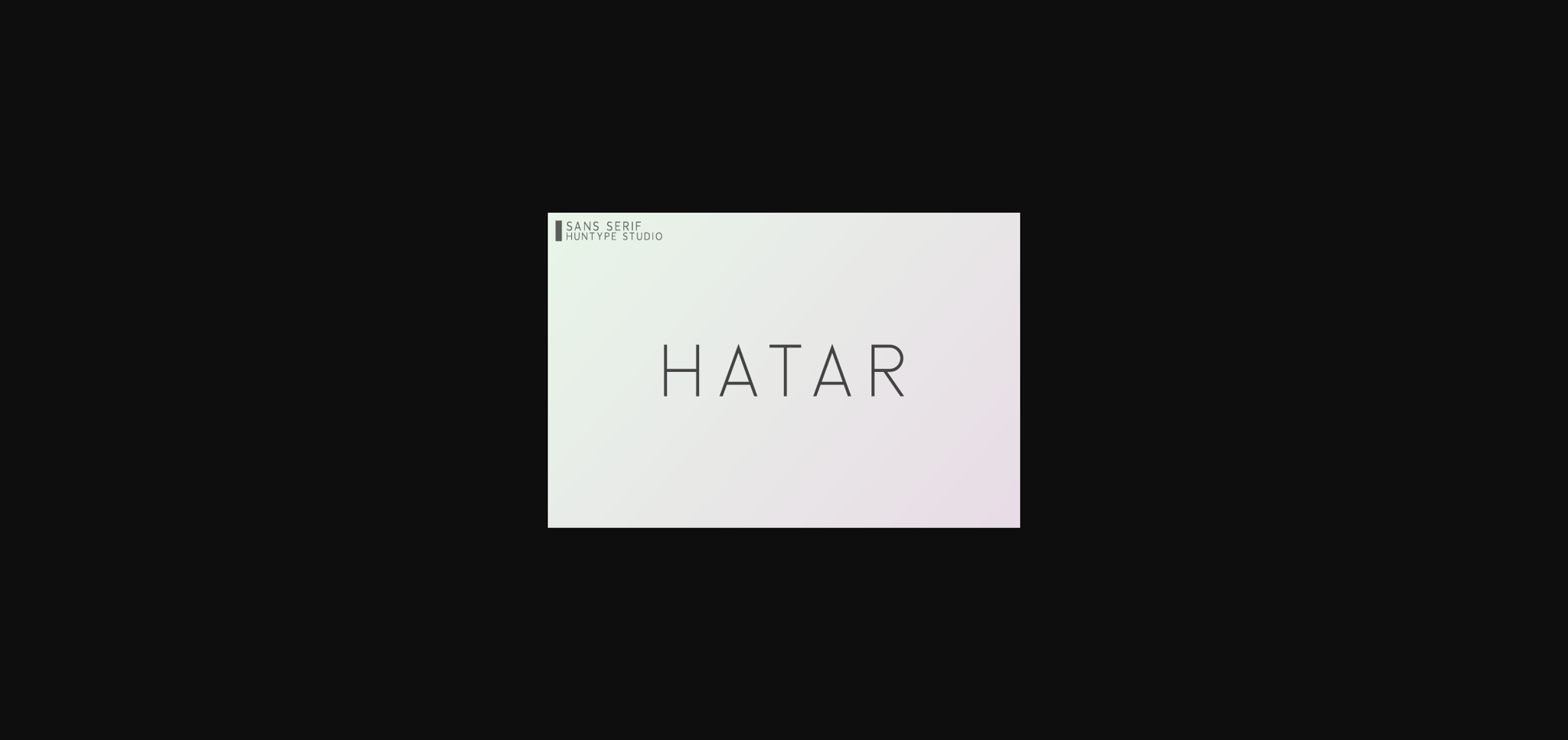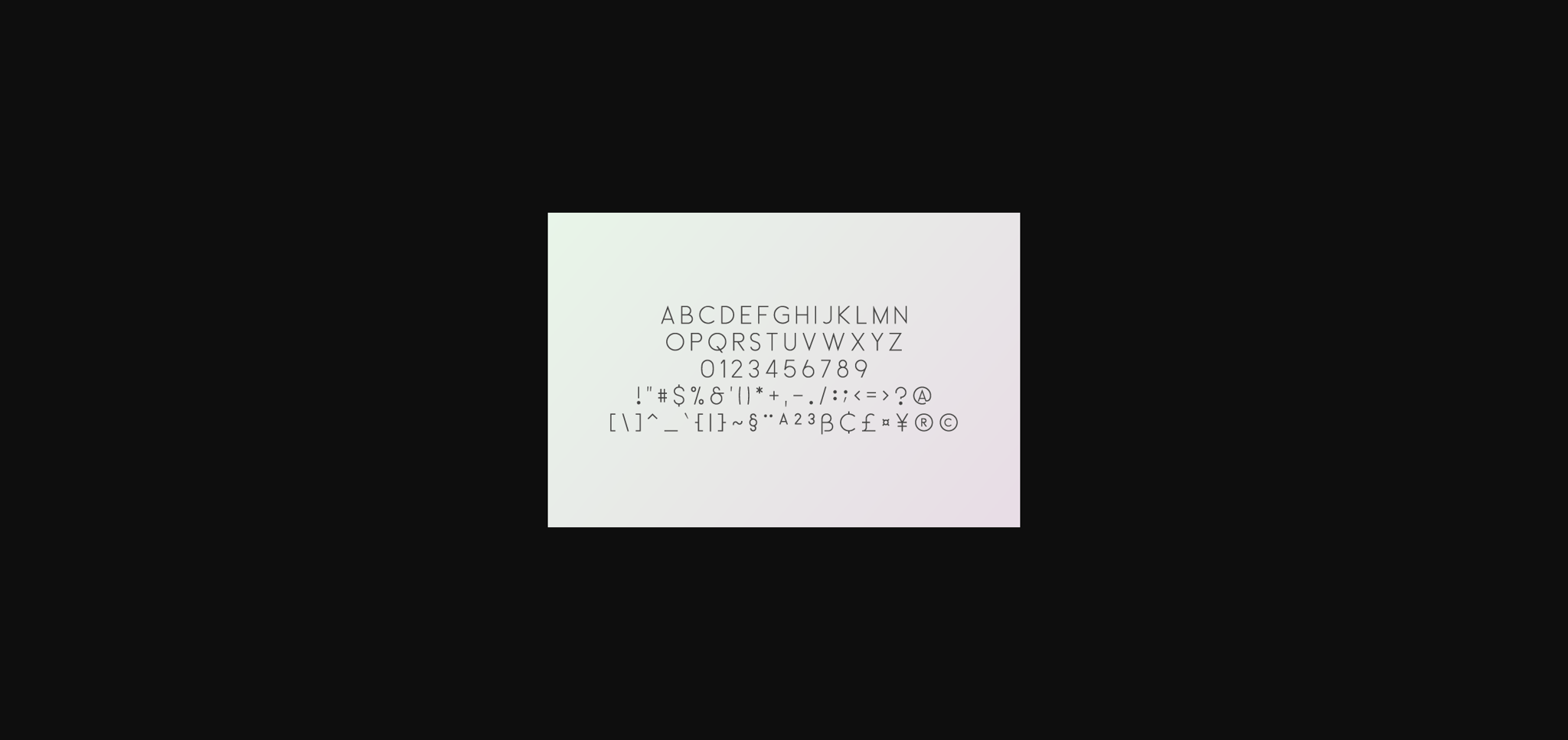
About Hatar Font
Rough and warm, Hatar is a versatile sans serif font. Strong capitals and smooth and open lowercase letters are effective in a variety of applications. This typeface will look outstanding in both formal and non-formal designs.